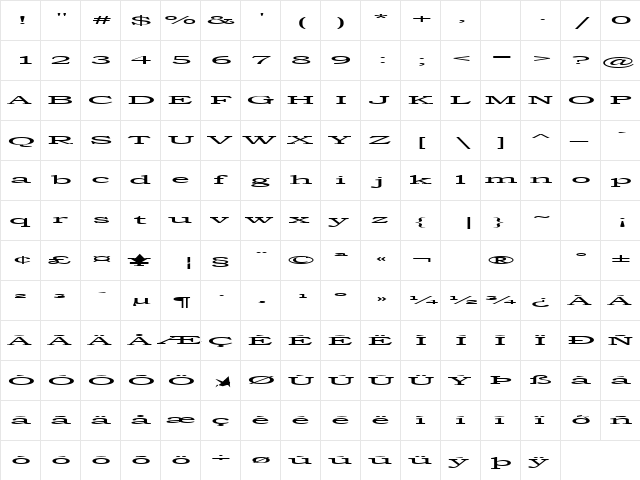
Steamroller Regular
Design Context for Steamroller Typeface
Steamroller is a composed and adaptable typeface that performs quietly and consistently across a wide range of design contexts.